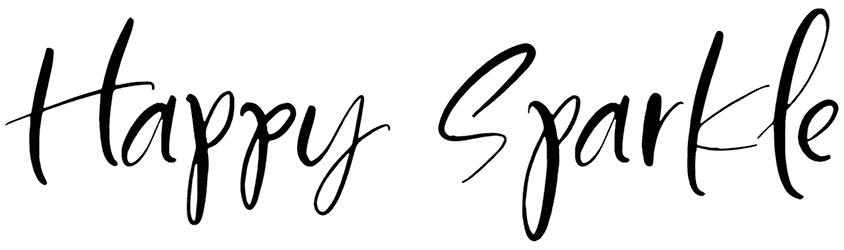
Christian Sunday Font
A good point about a calligraphy font like this one is that you can use it for any formal or informal design. The characters of this postcard font are smooth and curvy and have a chic vibe. If the Christian Sunday font captures you, test it for a designer’s business card, or other creative layouts, and amaze your followers.
Designed by: Integritype Studio